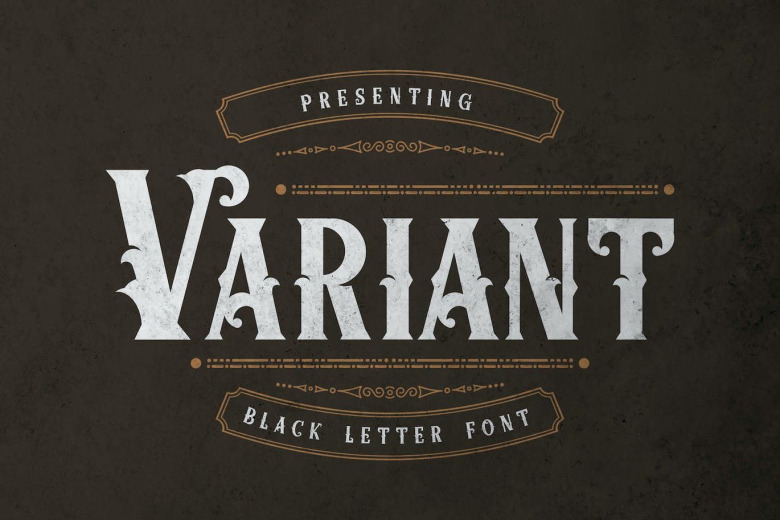
Variant Font
Variant Blackletter Font is perfect for many of your projects like logos & branding, photography, invitations, watermarks, advertisements, product designs, stationery, wedding designs, labels, product packaging, special events and much more.
Variant Blackletter Font